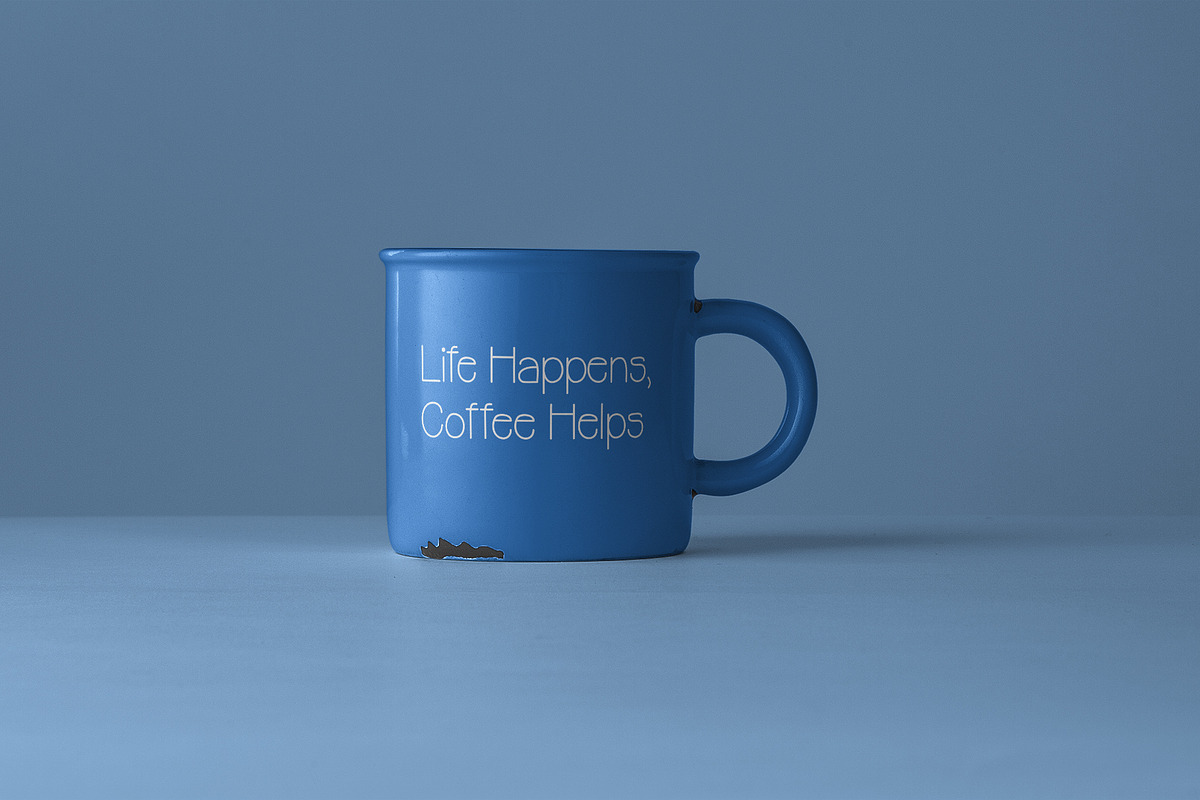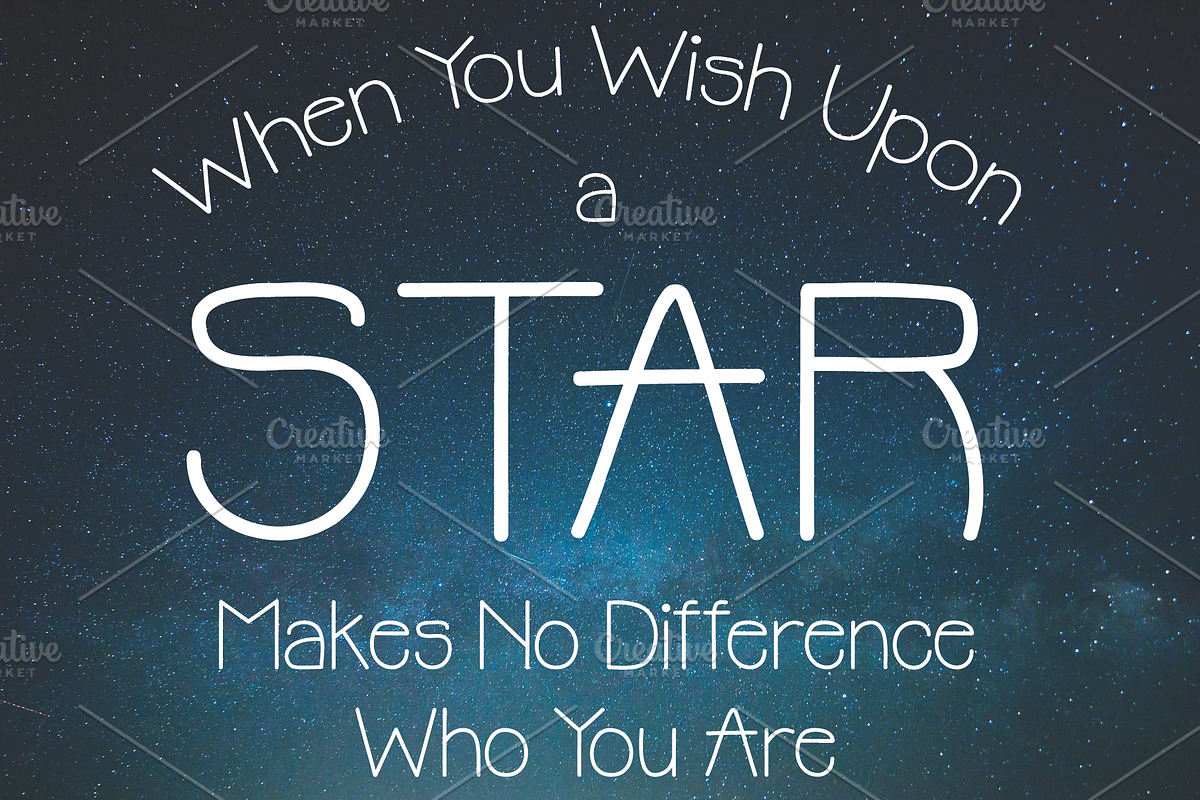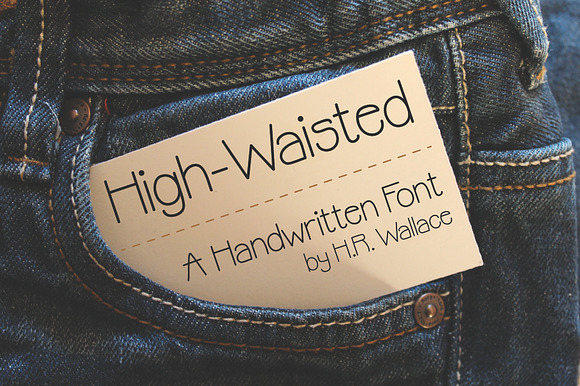
High-Waisted Handwritten Font
Fashion trends may come and go, but the High-Waisted handwritten font by H.R. Wallace is certain to never go out-of-style.
High-Waisted is a display font that's perfect for those times when you want a handwritten font that's still smooth and precise. With its precise appearance, you'll be able to add a neatly written, individual look to your designs.